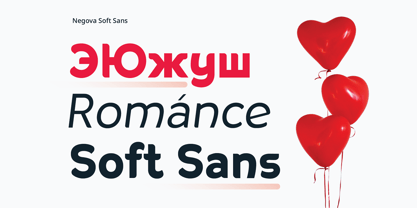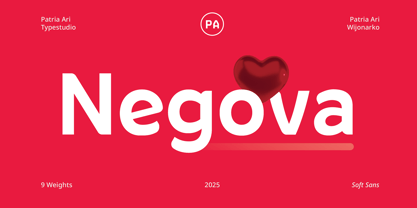
Negova
by Patria Ari
The Negova Font Family was designed by Patria Ari Wijonarko and published by Patria Ari. Negova contains 18 styles and family package options. More about this family
Negova is a charming and curvaceous display sans-serif font that exudes a sense of playfulness and elegance. Its rounded edges and smooth curves give it a friendly and approachable feel, making it perfect for designs that aim to convey warmth and creativity.
The font’s unique character shapes and balanced proportions ensure excellent readability, even at larger sizes, making it ideal for headlines, logos, and other prominent design elements.
Negova’s versatility allows it to blend seamlessly into a variety of design contexts, from modern and minimalist to whimsical and artistic. Whether you’re working on branding, editorial design, or digital media, Negova adds a touch of sophistication and charm to any project.
Designers: Patria Ari Wijonarko
Foundry: Patria Ari